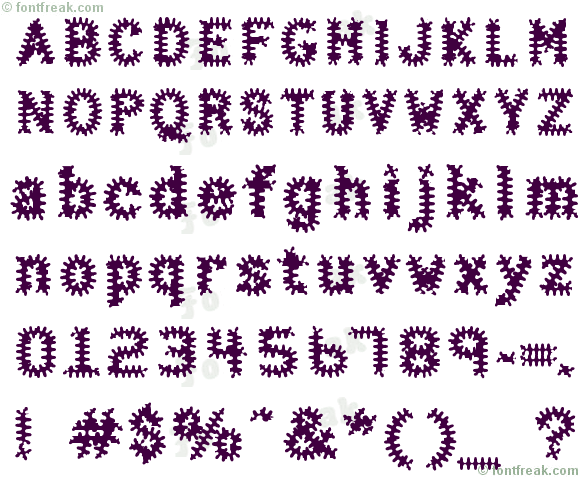
Halter Antigenic
Halter Pinchy
Halter
About Halter
The Halter font by Apostrophic Labs is a distinctive display typeface that offers a unique visual appeal for a variety of design projects. Characterized by its bold, chunky strokes and playful curves, Halter makes a striking statement wherever it's used. The font features a low contrast between thick and thin strokes, which enhances its readability while adding a touch of modern flair. The letterforms are well-spaced, ensuring clarity even at larger sizes, making it an excellent choice for headlines and signage.
Halter is particularly well-suited for creative use cases such as movie posters, where its dramatic style can draw attention and evoke emotion. It also shines in branding for small businesses, giving a memorable face to cafes, boutiques, and artisanal shops. Additionally, the font works wonderfully for wedding invitations, adding a playful yet sophisticated touch to special occasions. Graphic designers will find Halter an excellent choice for social media graphics, where eye-catching typography can help content stand out in crowded feeds.
What truly sets Halter apart is its ability to blend fun with functionality. Its quirky aesthetic can inject personality into any project, while its solid construction ensures that it remains legible and impactful. For those seeking a unique typeface that balances creativity with practicality, the Halter font free download is an ideal choice, inviting users to explore its potential in diverse design applications.